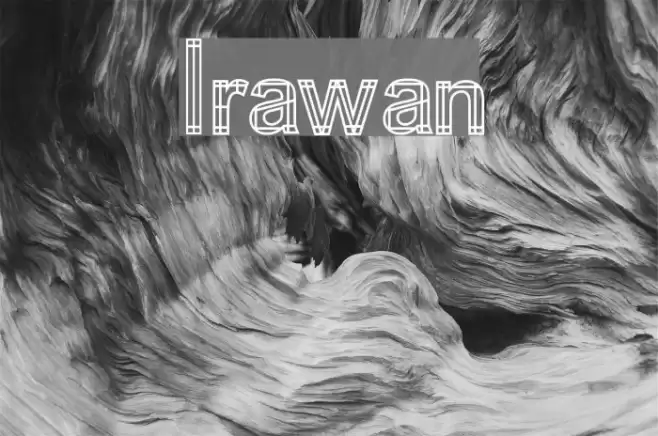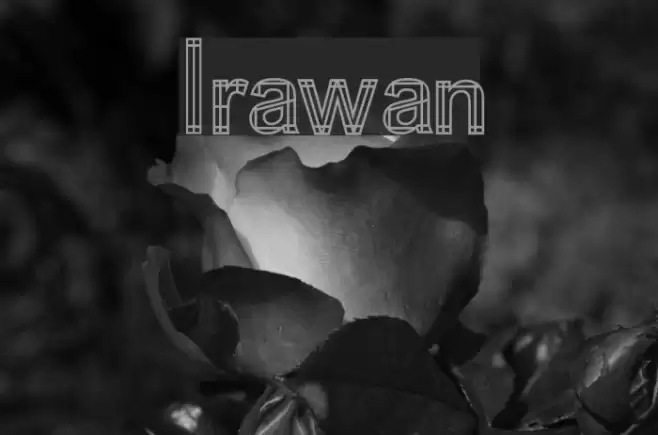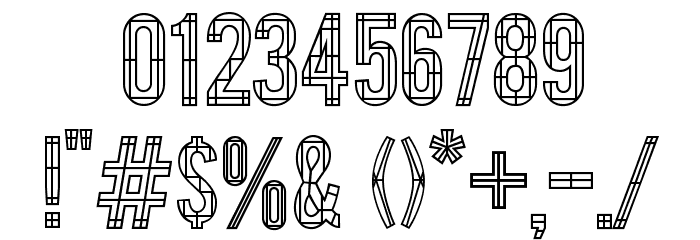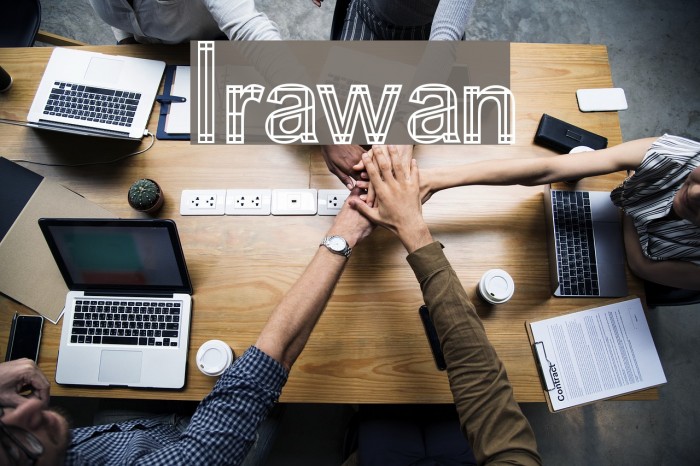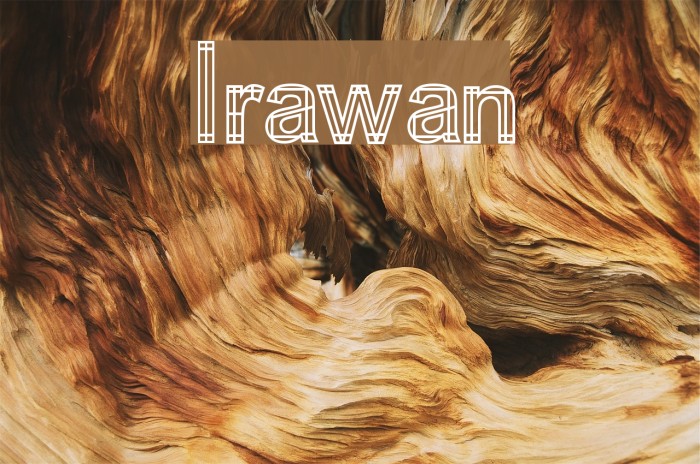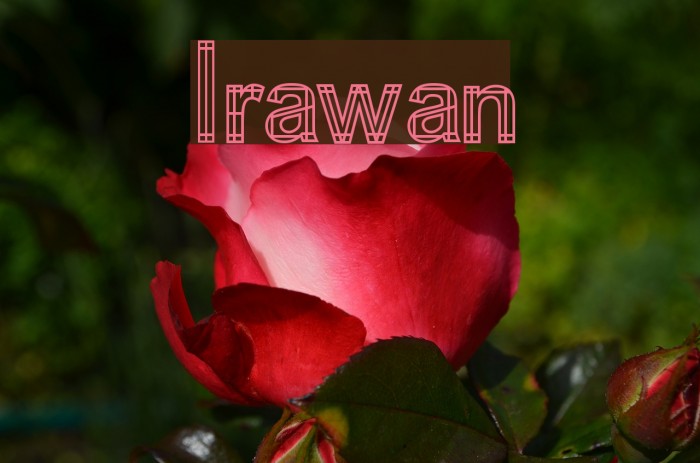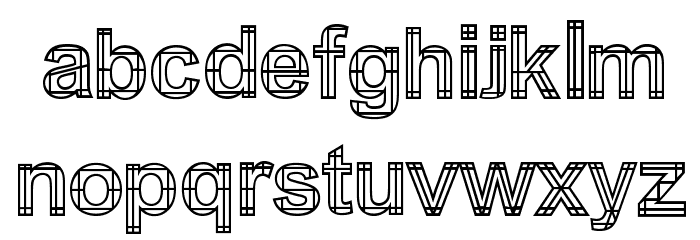
Irawan Font
Irawan Description
This font features a unique, decorative style with a double-line outline that gives it a dimensional, almost architectural appearance. The uppercase and lowercase letters maintain a consistent structure, with clean, geometric lines that form each character. The numbers and special characters follow the same design, ensuring uniformity across all elements. The font's open, airy design makes it stand out, while the consistent line thickness provides a balanced look. It's a versatile choice for projects that require a bold, eye-catching typeface.
A decorative, double-line font with a geometric, architectural style from Uncategorized fonts.
- Proposed Projects: Ideal for posters, logos, headlines, and any design needing a bold, standout font.